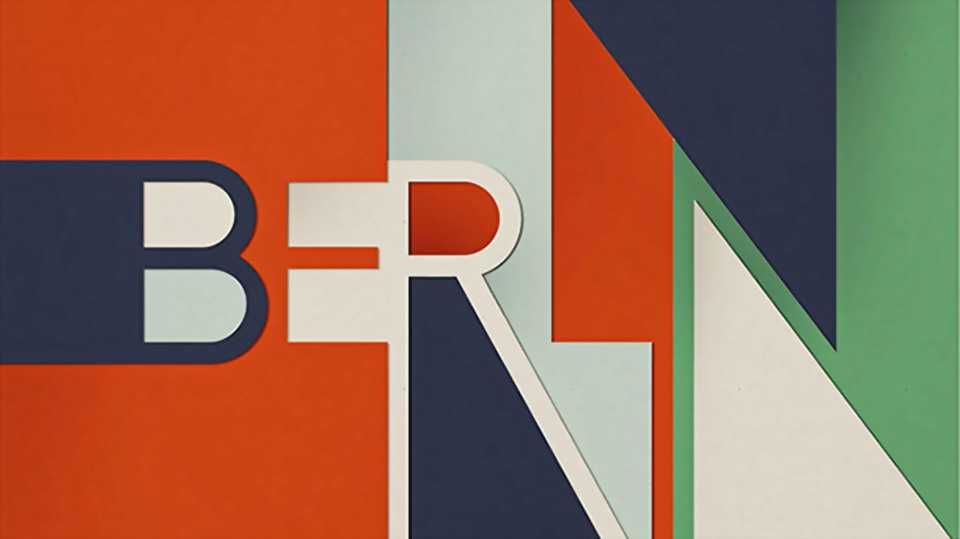
Download Berlin typeface, a display font family in four styles, inspired by the classic geometric typefaces from early last century. Berlin fonts work great in headlines, branding, packaging, as well as large format text.
Designer: Antonio Rodrigues Jr